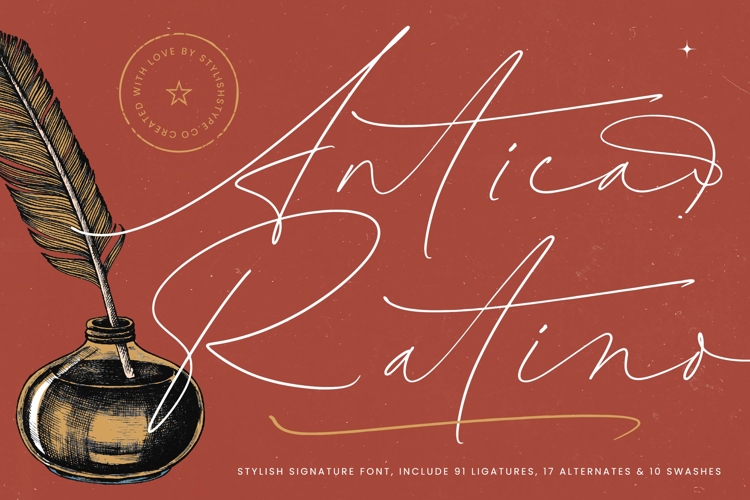
Antica Ratino - Stylish Signature Font
Elevate your brand’s visual narrative with an unmatched sense of sophisticated elegance. Antica Ratino - Stylish Signature Font captures the fluid motion of authentic handwriting, offering a bespoke aesthetic that feels both and professional. Its refined monoline strokes and graceful curves provide a luxury feel, ensuring that every design project exudes a high-end, custom-crafted appeal with a high-contrast finish.
Experience the pinnacle of typographic craftsmanship through a meticulously designed feature set. Antica Ratino - Stylish Signature Font includes an impressive 91 ligatures and 17 alternates, allowing for endless customization and a truly organic flow. The addition of 10 decorative swashes further enhances its artistic versatility, making it easy for designers to achieve a high-fashion look with minimal effort.
Expand your creative horizons with a typeface engineered for limitless global reach. With its extensive multilingual support, Antica Ratino - Stylish Signature Font adapts seamlessly across global markets, making it incredibly versatile for international projects. This broad linguistic compatibility ensures that your brand message remains consistent and impactful, regardless of the geographic target or language requirements.